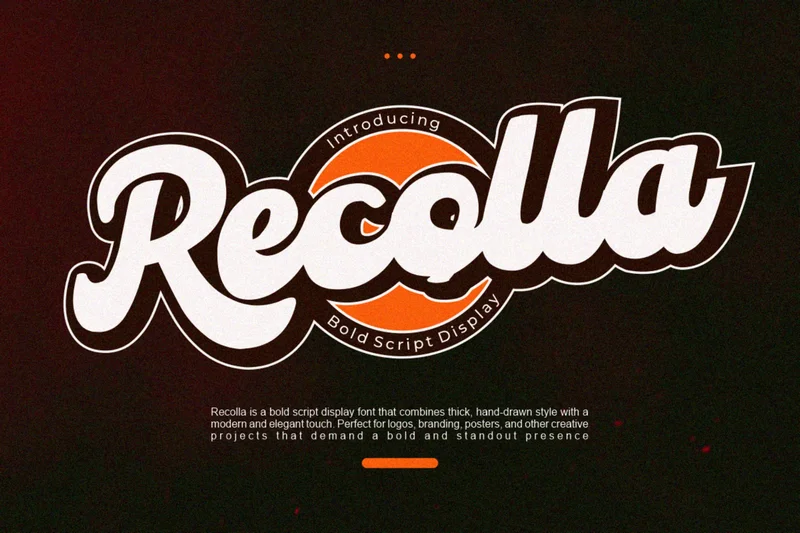
Recolla
Recolla – Bold Script Display Font
Recolla is a bold script display font that combines thick, hand-drawn curves with a modern and elegant touch. Designed to bring strong personality and confidence to your projects, Recolla is perfect for logos, branding, posters, packaging, and other creative designs that demand a bold and standout presence.
Each letter is crafted with smooth connections and dynamic flow, giving your text a natural yet powerful look. With its stylish appearance and versatile character, Recolla will easily elevate your creative work to the next level.